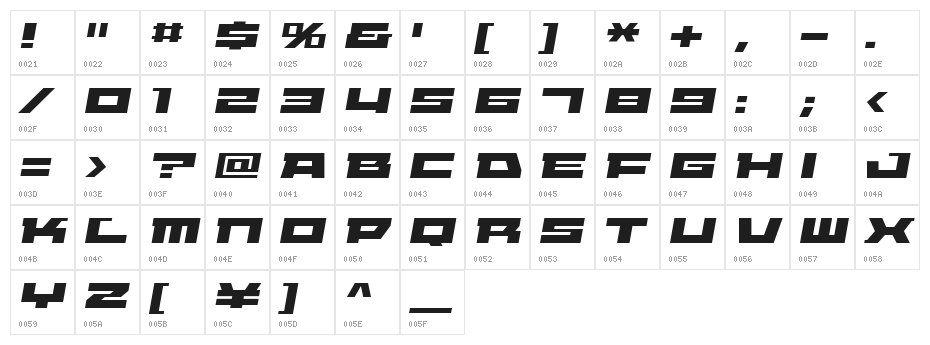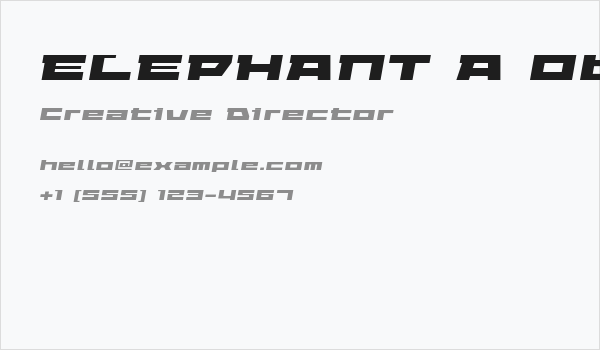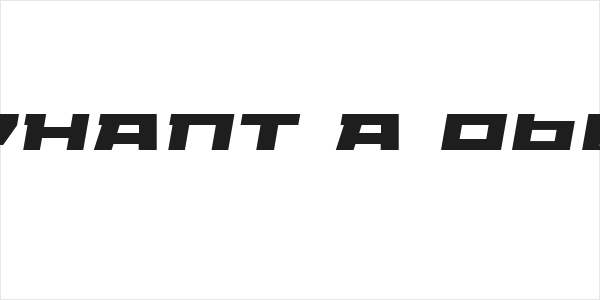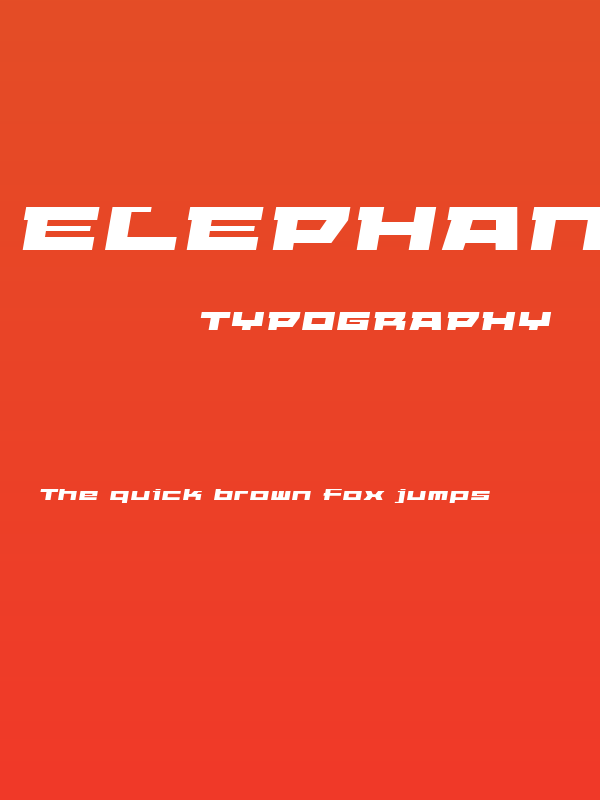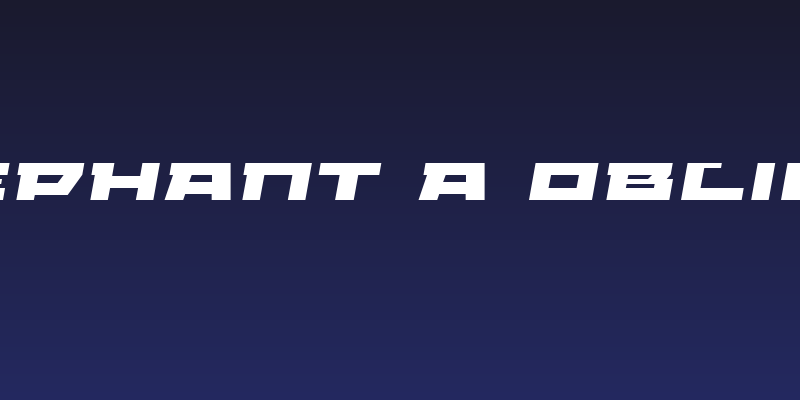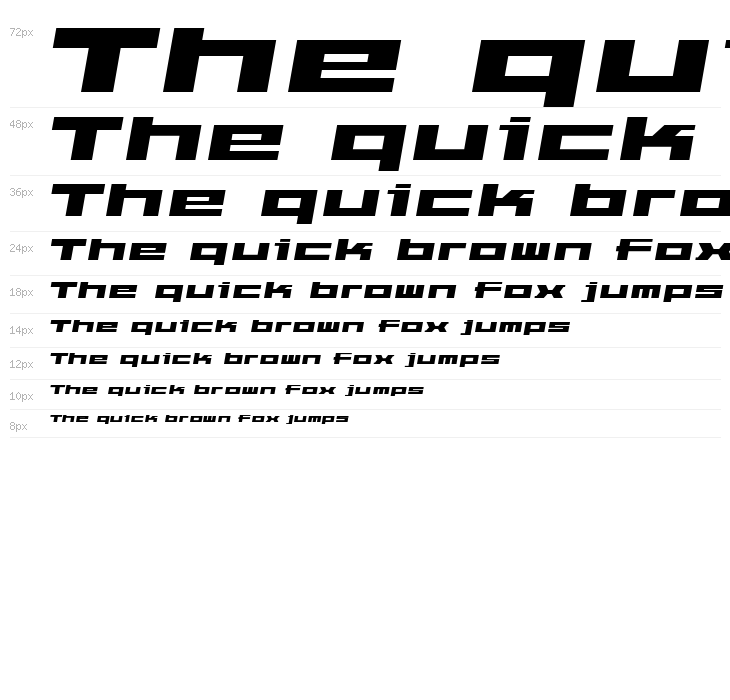
ELEPHANT A Oblique Font
ELEPHANT A Oblique Description
This font features a bold and dynamic style with a strong geometric influence. The characters are slightly slanted, giving an oblique appearance that adds a sense of motion and energy. The strokes are thick and consistent, creating a powerful visual impact. The uppercase and lowercase letters maintain a uniform width, contributing to a cohesive look. The numerals and special characters are designed with the same boldness, ensuring readability and emphasis. This font is ideal for projects that require a modern and assertive aesthetic.
| Proposed Projects | Suitable for branding, sports team logos, posters, and headlines that demand attention. |